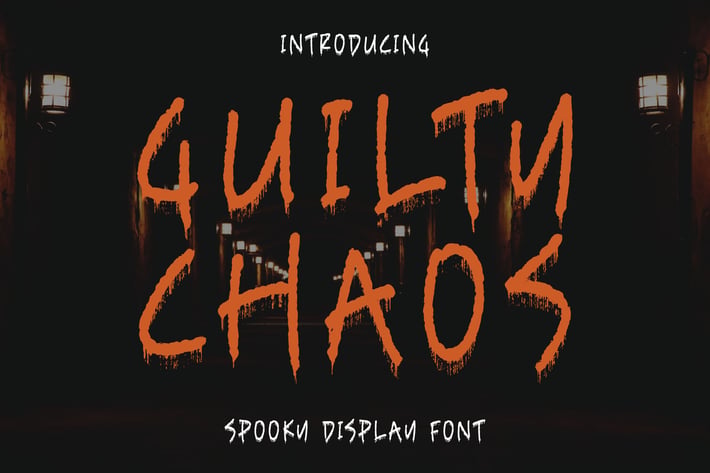
Guilty Chaos Spooky Display Font
Guilty Chaos is a bold spooky display font crafted with rough, chaotic strokes that bring horror-themed designs to life. Its distressed handwriting style creates an eerie, dramatic atmosphere — perfect for projects that need a gritty, unsettling, and cinematic spooky vibe. Whether for Halloween visuals or thriller-inspired graphics, this typeface delivers instant character and intensity.
Spooky handwritten display style
Rough, distressed strokes for an eerie effect
Strong personality with chaotic visual texture
Halloween posters & spooky event flyers
Horror movie titles & thriller intros
Haunted house branding
Social media spooky themes
YouTube thumbnails & gaming visuals
Book covers for mystery or horror genres
Creepy quotes & atmospheric typography
Merchandise with eerie aesthetics
Chaotic, gritty, and unmistakably spooky — Guilty Chaos brings horror energy to every design.*